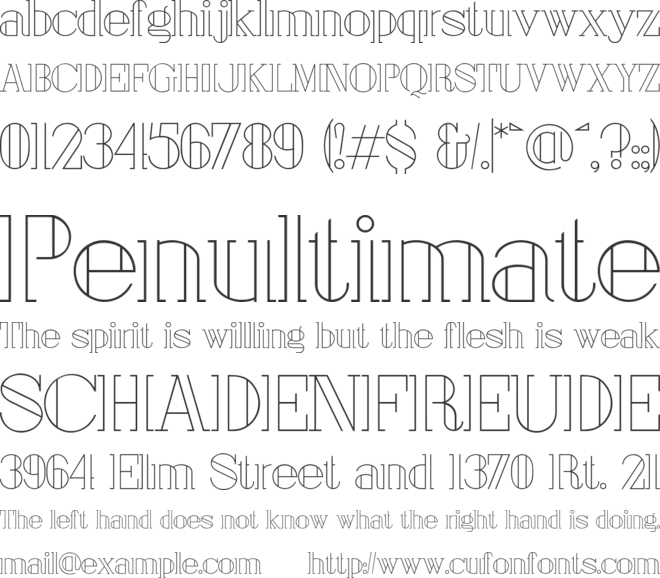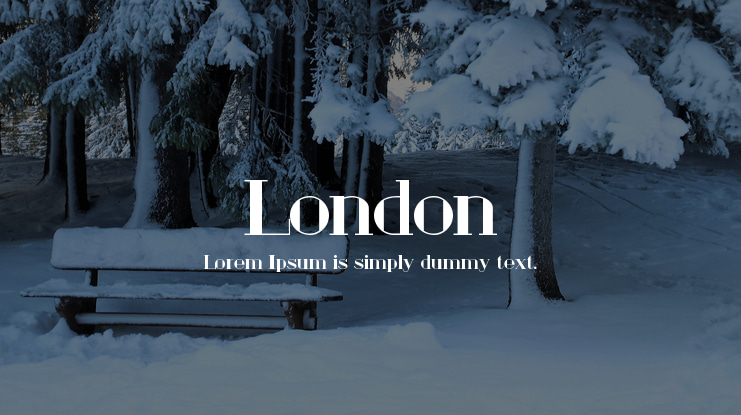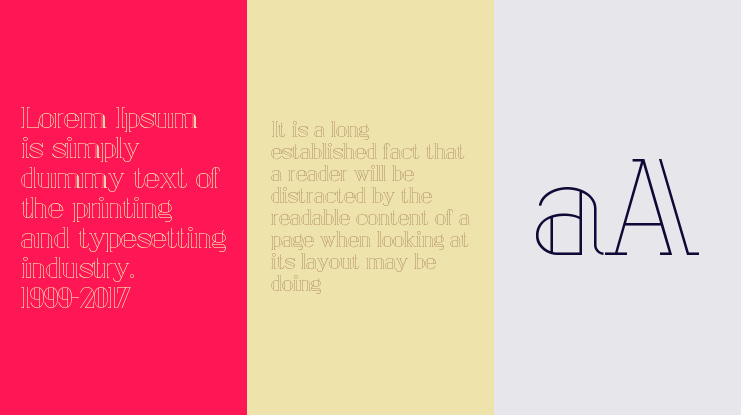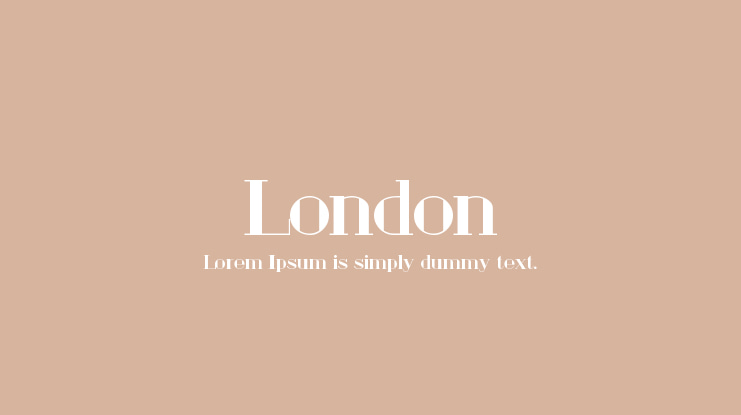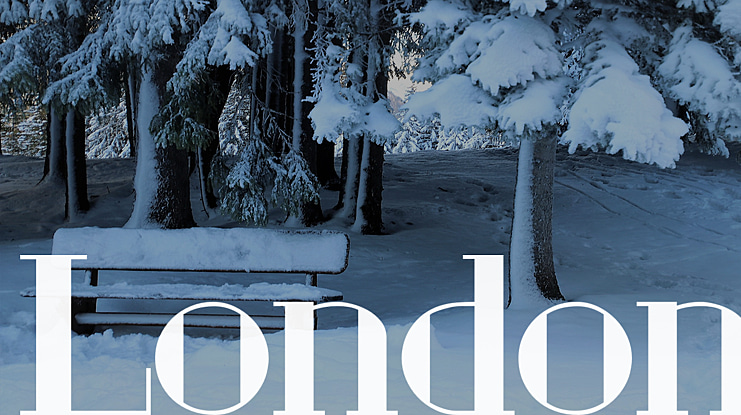
London Font Family
Antonio Rodrigues Jr
London is a modern and geometric font available in regular and fill. It looks very chic, and it’s a great option for magazine covers and headings. The font is inspired by the classic Bodoni, with major adjustments on the loops, ears, spurs and overall width.